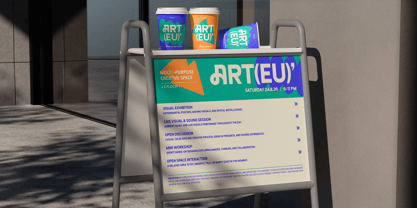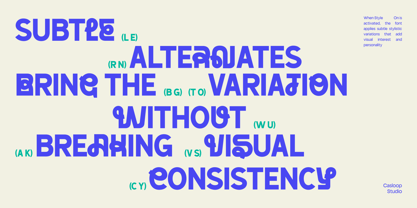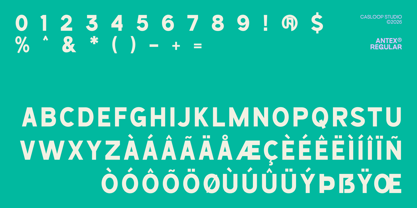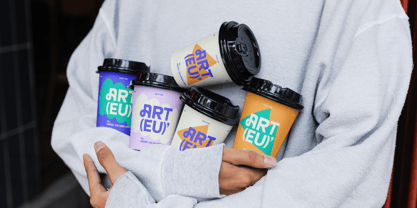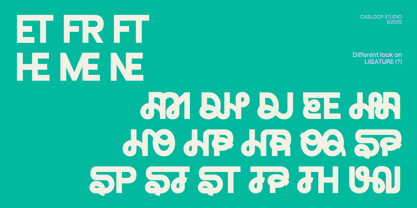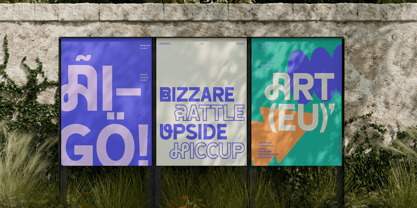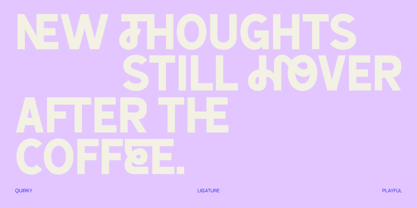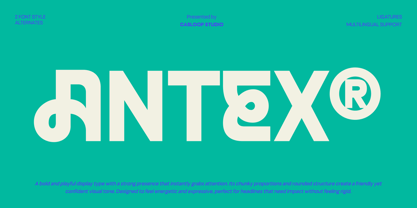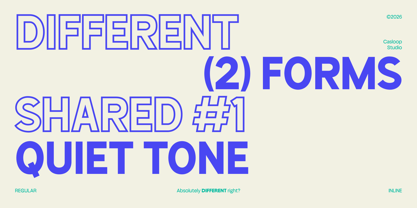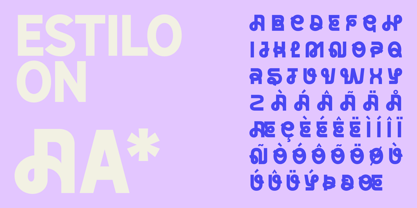
Antex
The Antex Font Family was designed by Wantara Putra and published by Casloop Studio. Antex contains 2 styles and family package options. More about this family
ANTEX is a bold playful display font defined by quirky shapes, fluid strokes, and a bizarre yet controlled visual rhythm, creating an expressive, energetic, and highly eye-catching voice. Designed for headlines and statement visuals, ANTEX features standout characters such as Q, R, W, M, A, and G that showcase its playful construction and weird charm while remaining readable and impactful at large sizes. It works best for brands and creatives who want to stand out, break symmetry, and communicate personality through bold typography. And recommended pairing with: Inter, Poppins, Space Grotesk, DM Sans, IBM Plex Sans. Multilingual : Bosnian, Catalan, Czech, Danish, German, English, Spanish, Estonian, Finnish, French, Irish, Croatian, Hungarian, Icelandic, Italian, Lithuanian, Latvian, Dutch, Norwegian, Polish, Portuguese, Romanian, Slovak, Slovenian, Albanian, Swedish, Turkish.